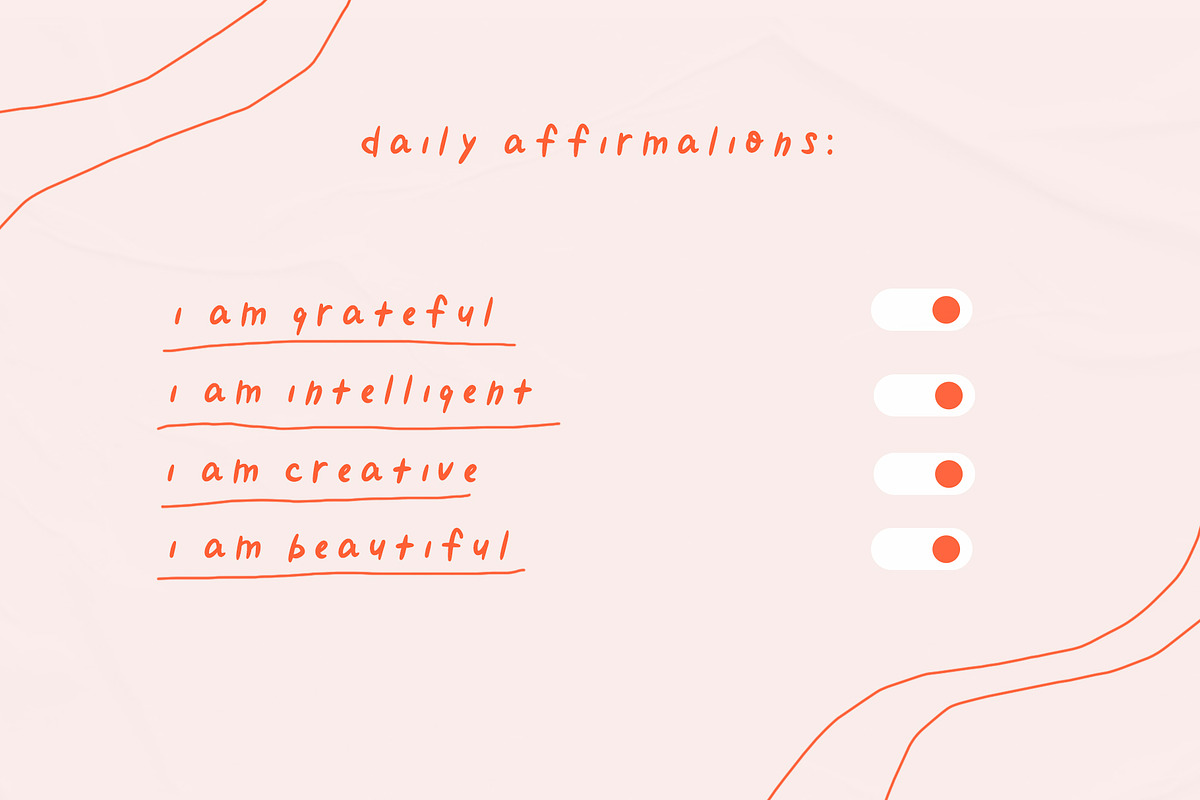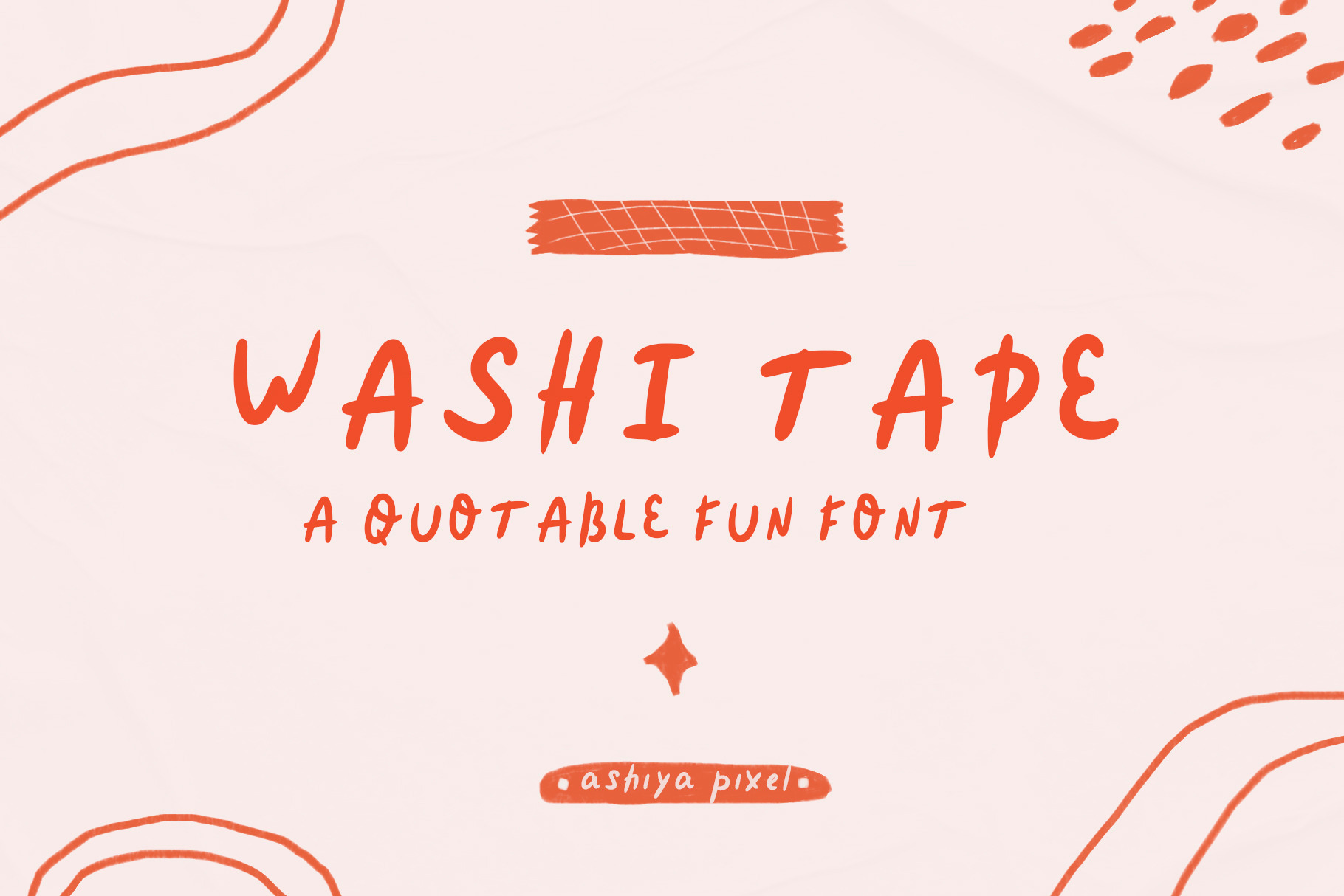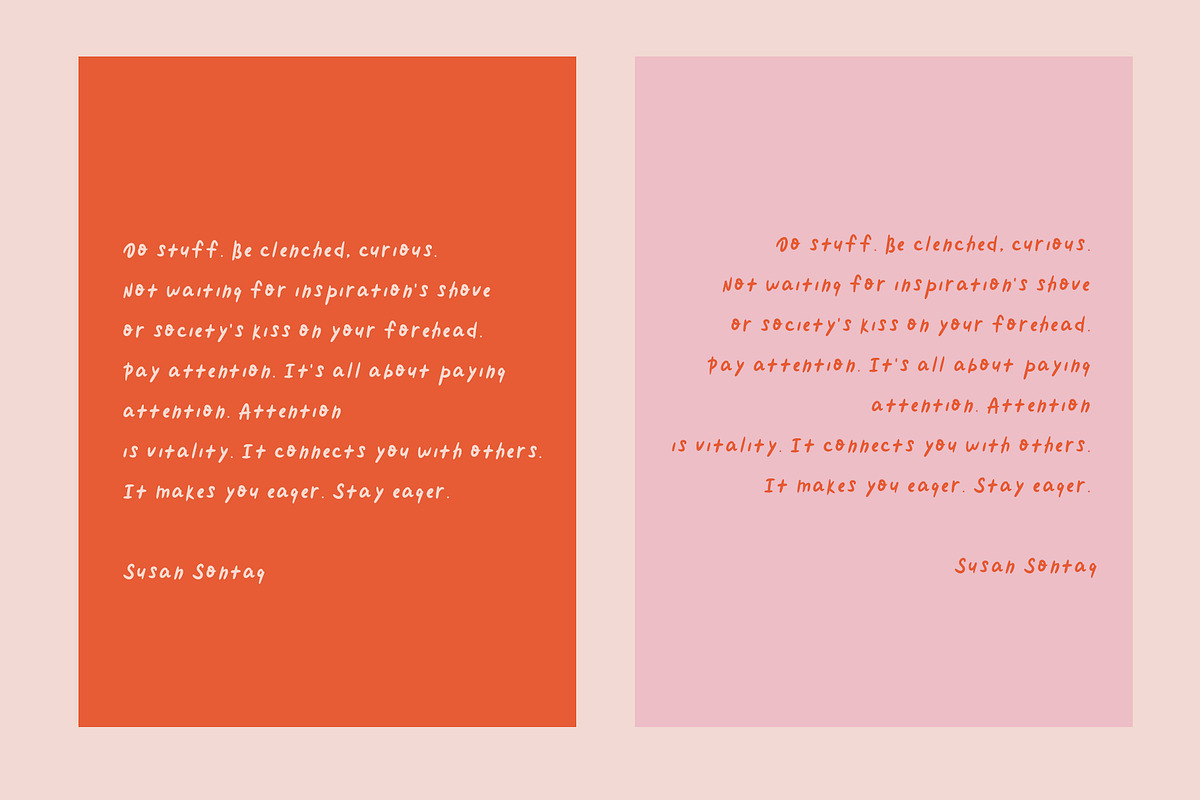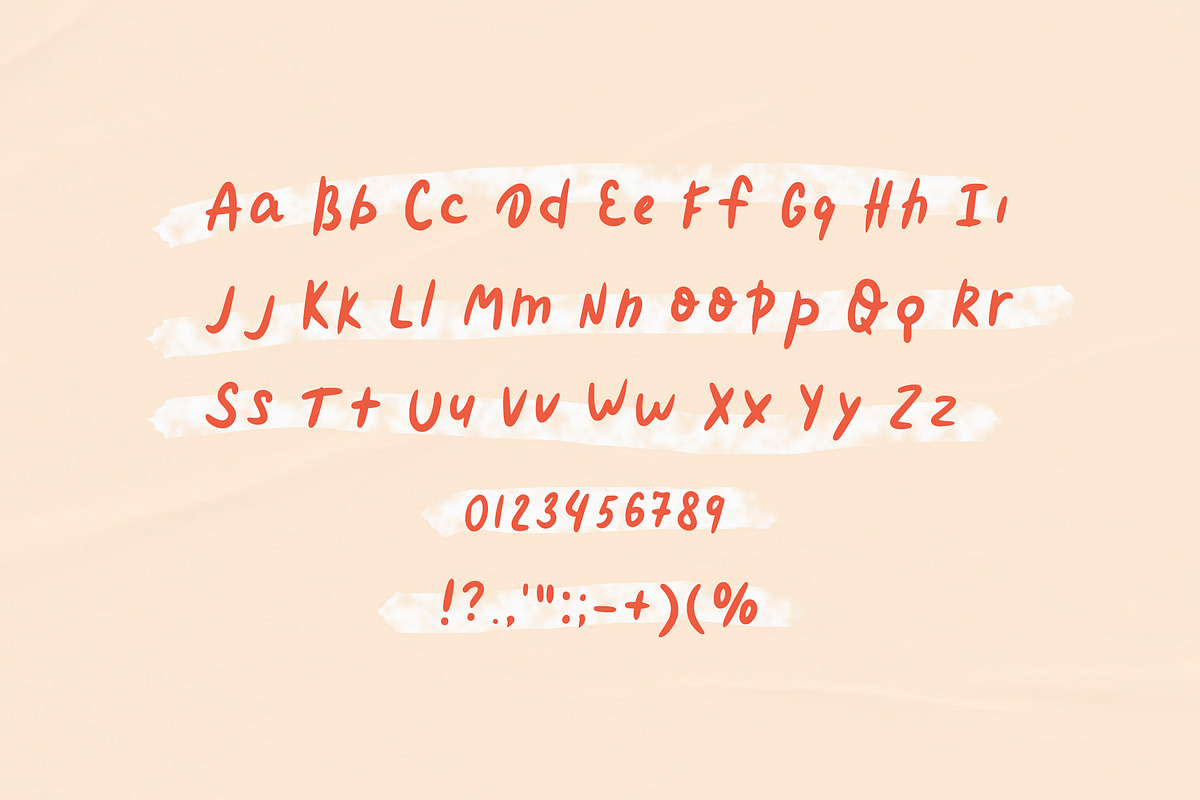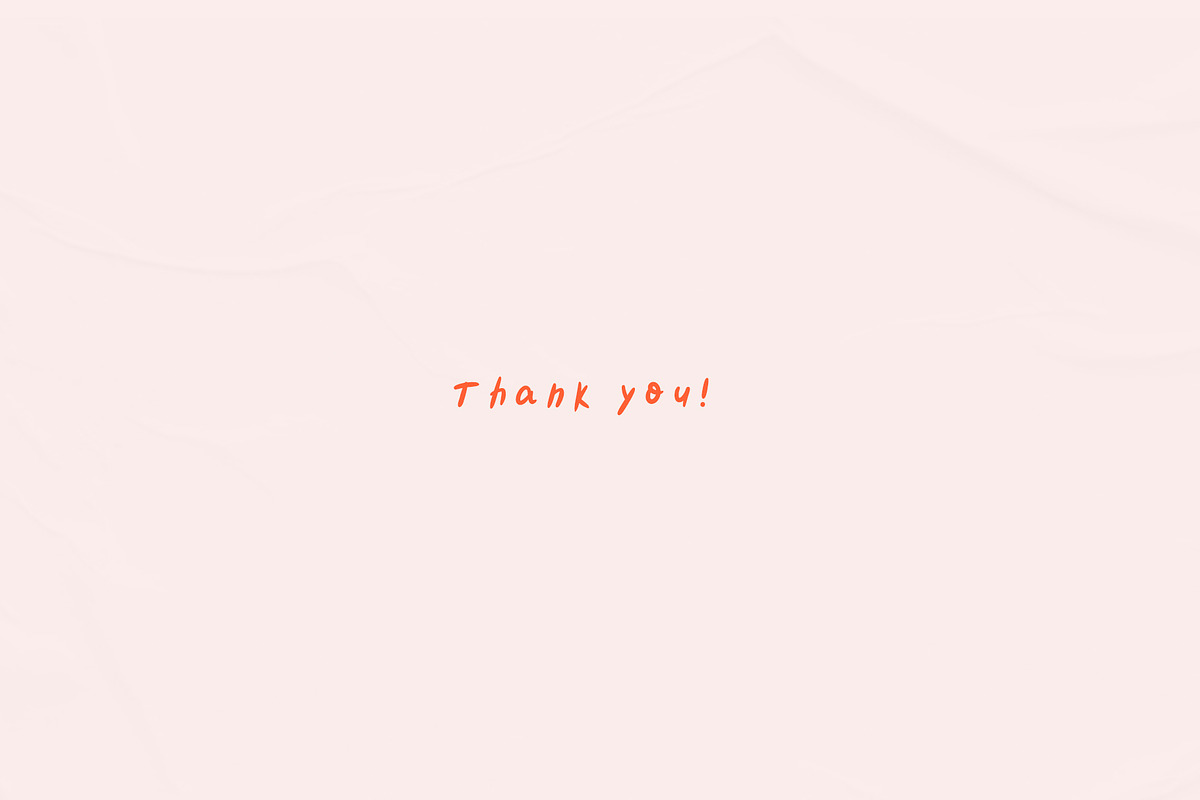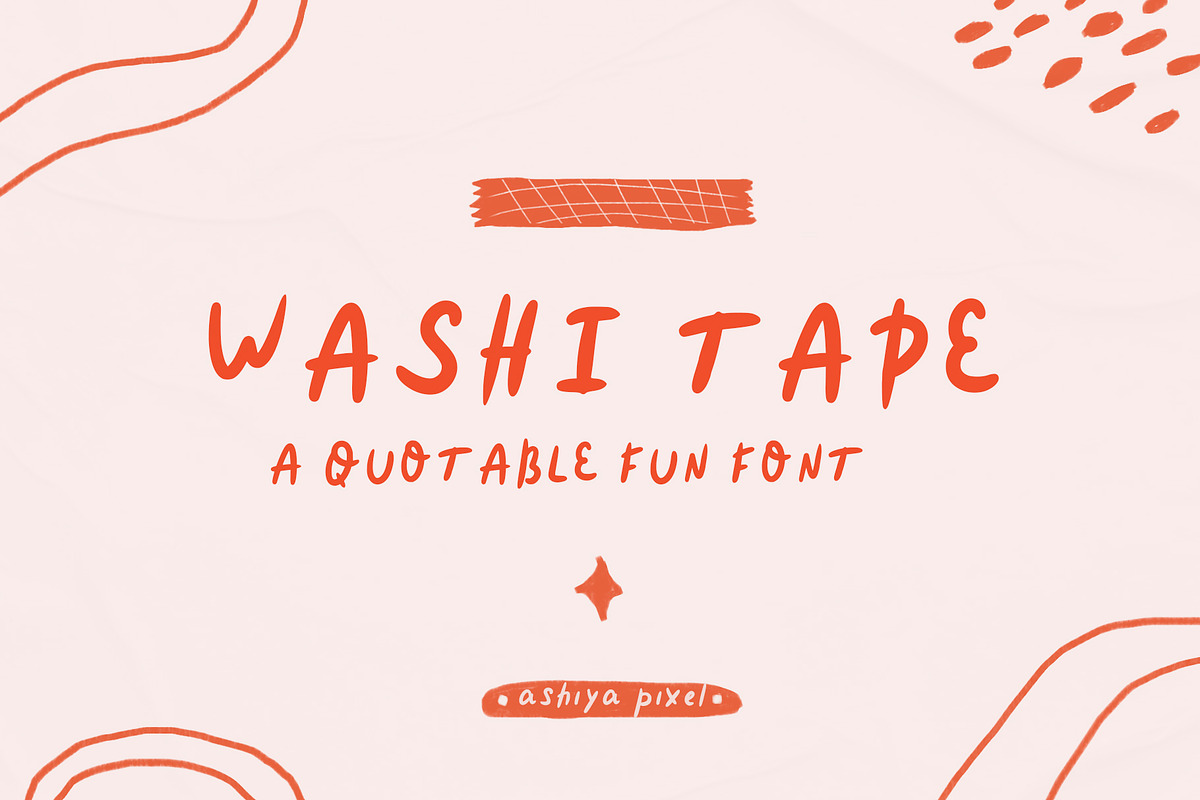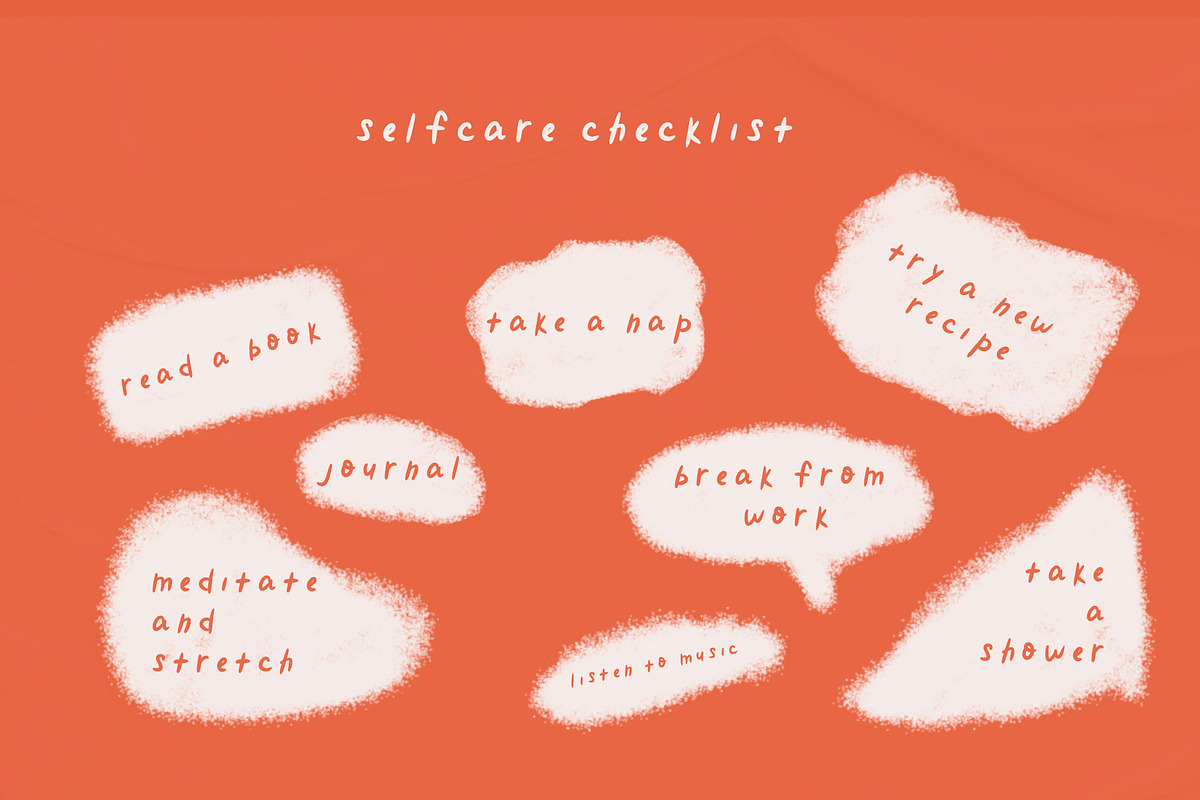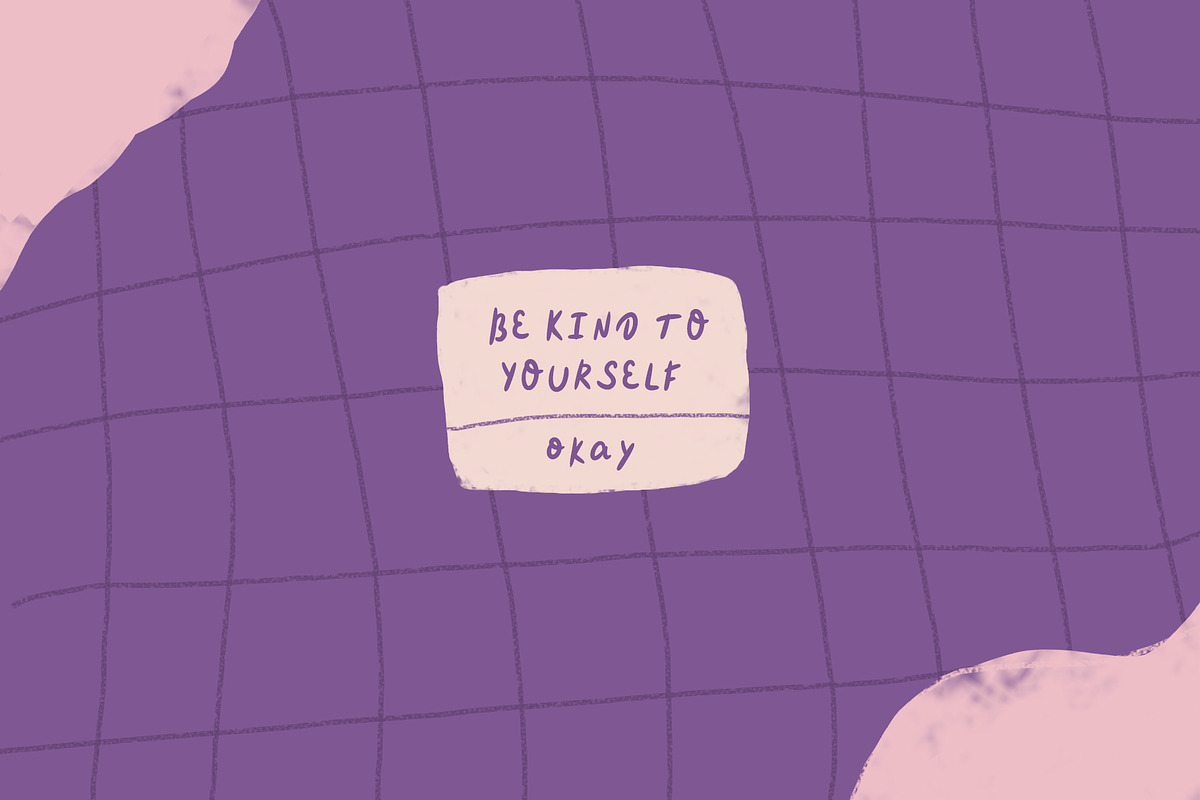
Washi Tape - a quote playful font
My new handwritten quotable font - Washi Tape. Perfect for logos, book cover, social media posts, posters, quotes, cards, calendars, etc.
P.S. it's my handwriting :)